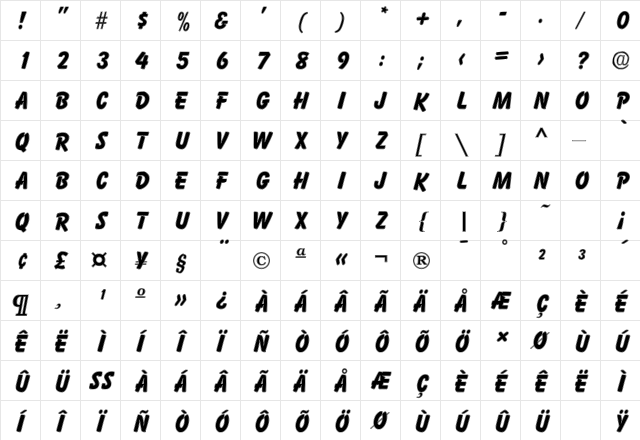
Balloonist Inline SF Bold
Design Context for Balloonist Inline SF Typeface
Balloonist Inline SF is built around its visual character rather than neutral utility — its distinctive forms are designed to make an impression at display sizes. Its bold stroke weight gives it real presence on the page.
Font Pairing: Pair with a clean neutral sans-serif for body copy to let Balloonist Inline SF's character lead without overwhelming the composition.
Pro Tip: Treat Balloonist Inline SF as the centrepiece of your typographic hierarchy. One strong heading set in a decorative face can carry an entire layout.